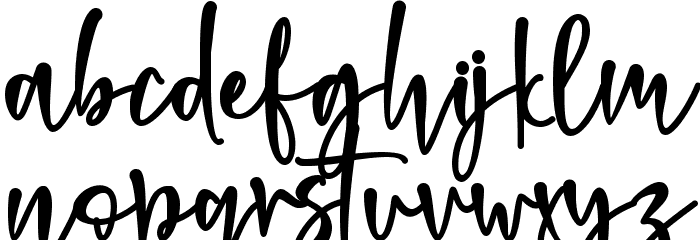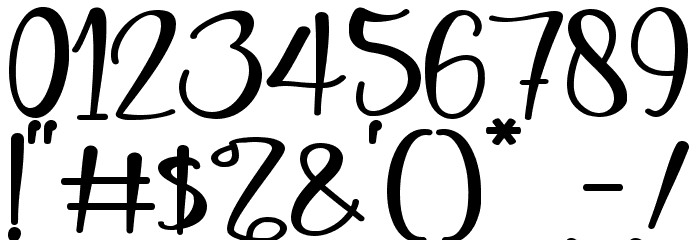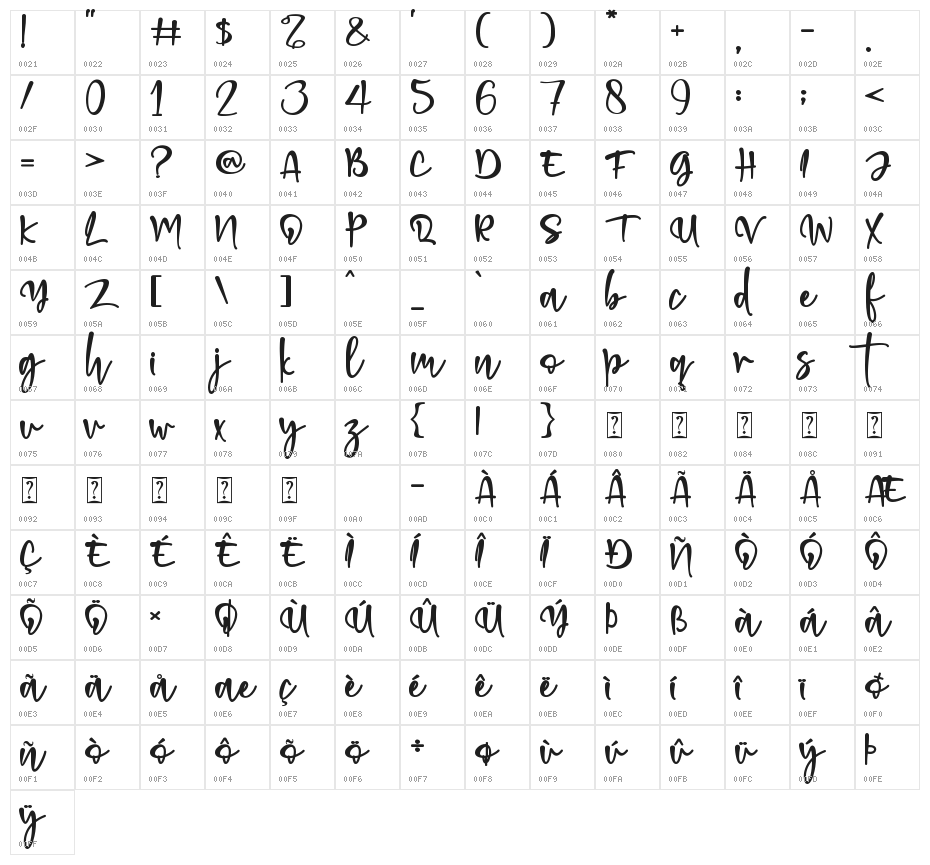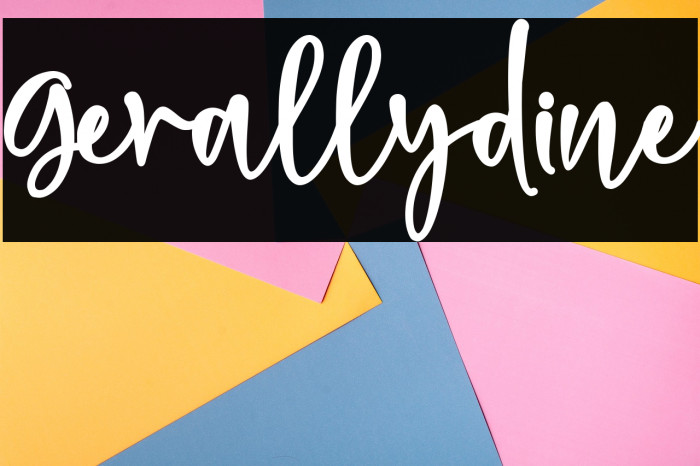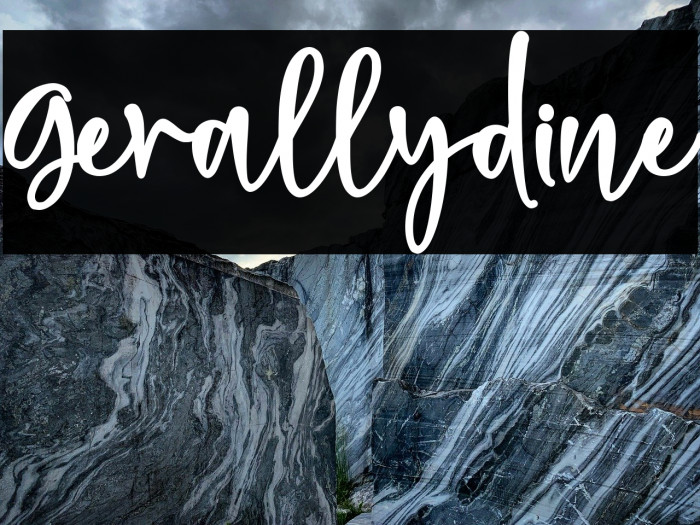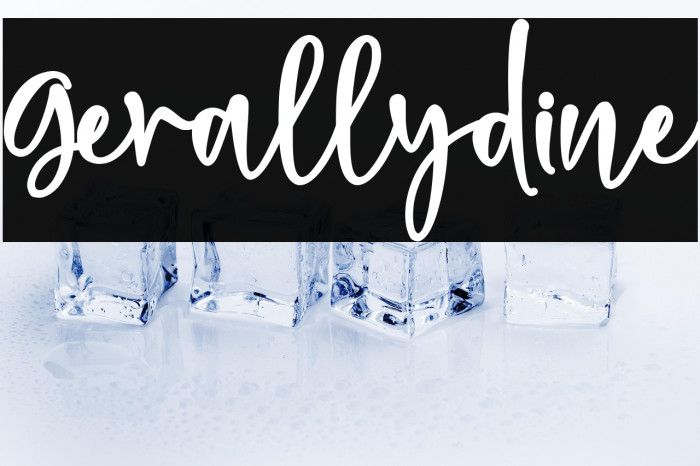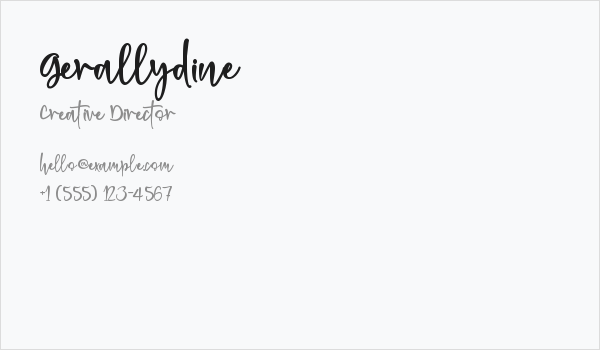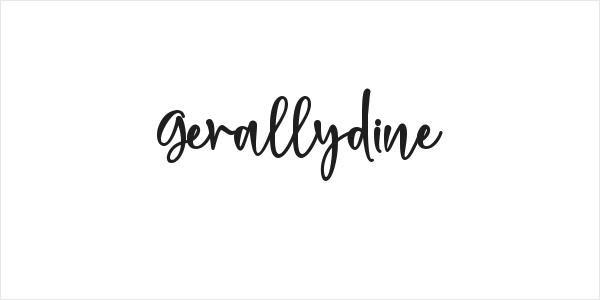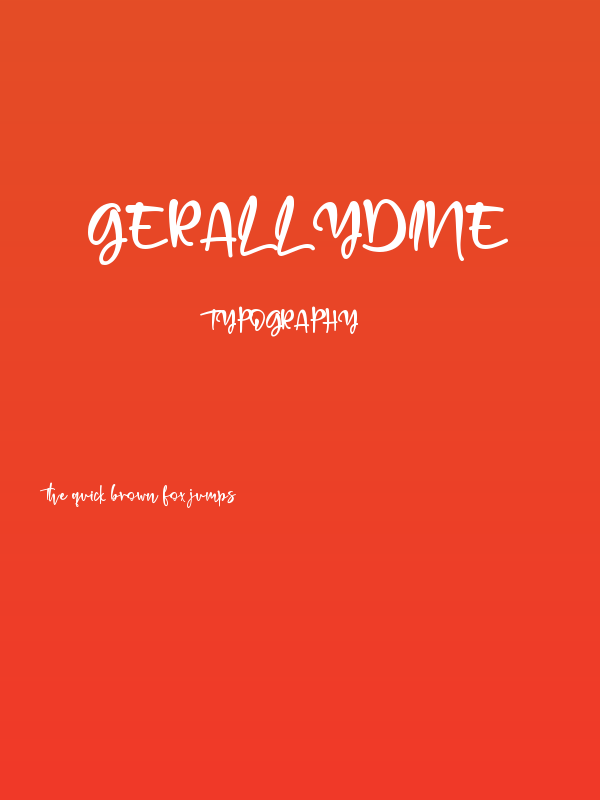
Gerallydine Font
This font features a lively and expressive handwritten style, characterized by its fluid and dynamic strokes. The uppercase letters are bold and slightly irregular, giving a sense of spontaneity and creativity. The lowercase letters maintain a consistent flow, with playful loops and curves that add to its charm. Numbers and special characters are crafted with the same energetic flair, making them stand out while remaining cohesive with the overall design. The font's aesthetic is both modern and approachable, making it suitable for a variety of creative projects.
A lively and expressive handwritten font with fluid, dynamic strokes.
- Font: Gerallydine
- Proposed Projects: Ideal for greeting cards, invitations, branding, social media graphics, and personal projects that require a personal touch.
- Category: Handwritten
- Use Case: Logos, Headlines, Invitations